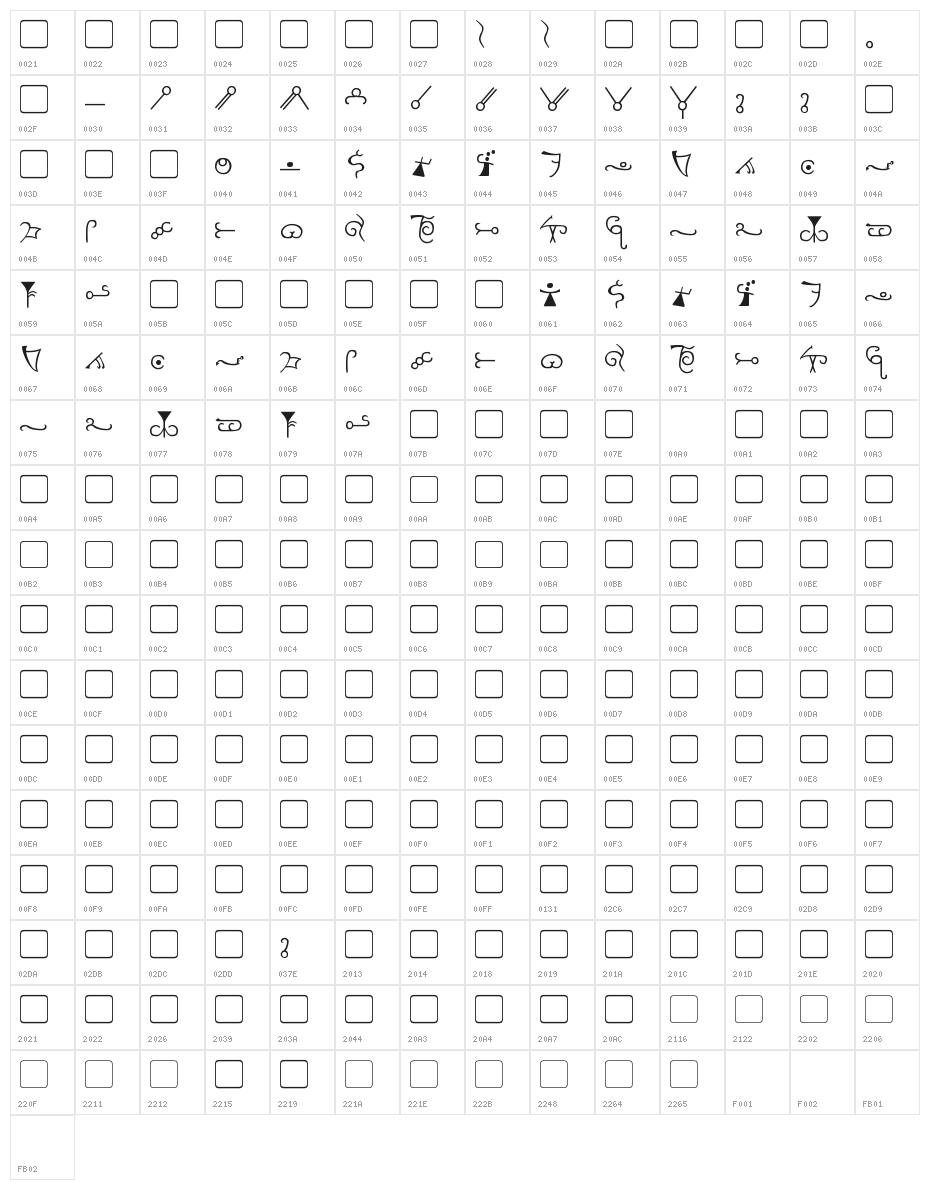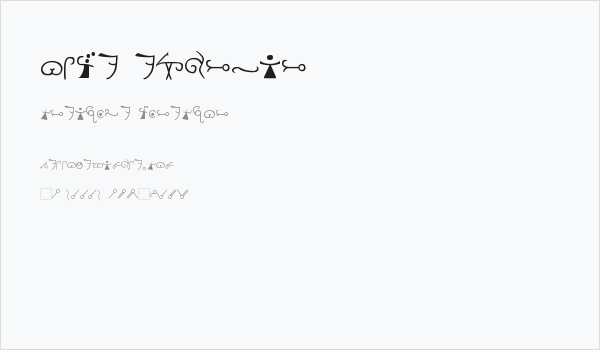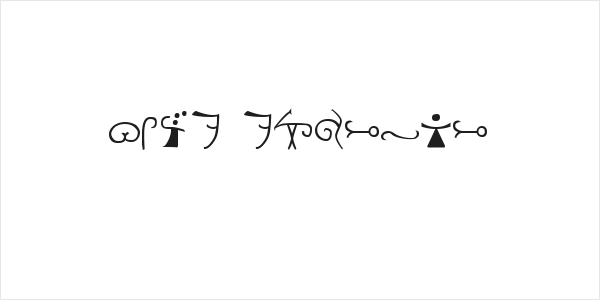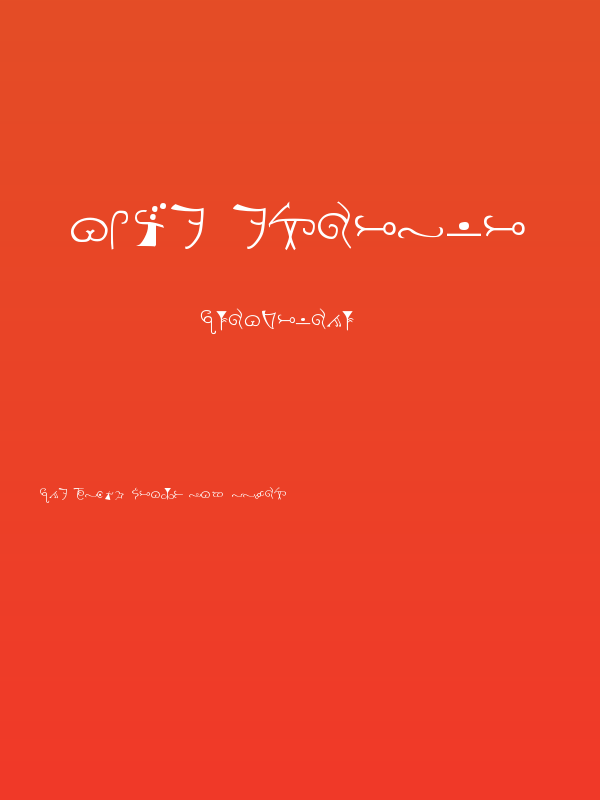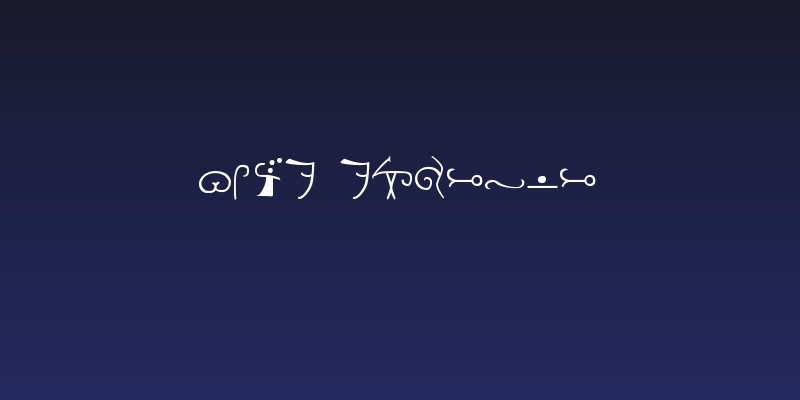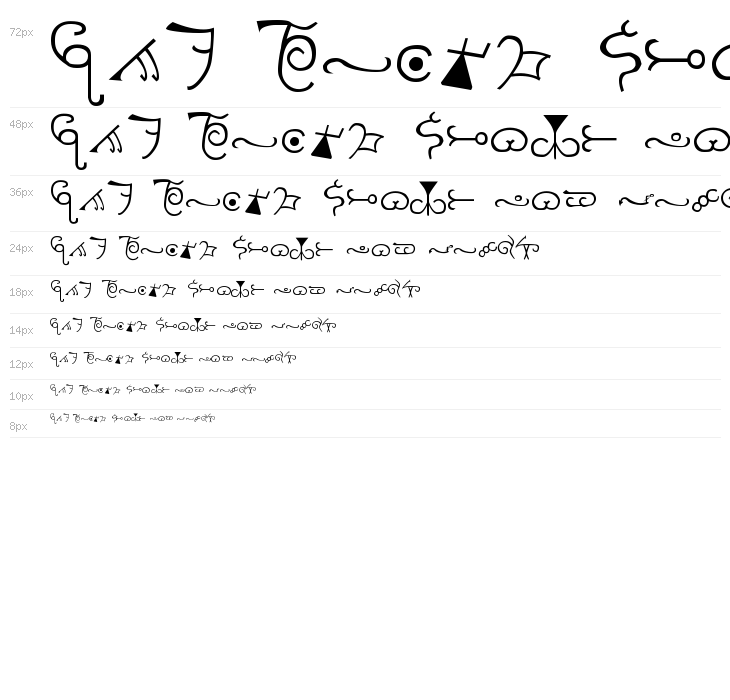
Olde Espruar Font
Olde Espruar Description
This font is a decorative script that evokes an ancient, mystical aesthetic. The characters are highly stylized, featuring intricate curves and unique geometric shapes that resemble runes or glyphs. Each letter is distinct, with elaborate flourishes and a sense of flowing movement. The overall design suggests a connection to fantasy or historical themes, making it ideal for projects that require a touch of the arcane or otherworldly. The characters are evenly spaced, maintaining a consistent visual rhythm across the text.
| Overall Style | Mystical, Ancient, Decorative |
| Use Case | Logos, Book covers, Game design |
| Proposed Projects | Ideal for fantasy-themed projects, game design, book covers, or any creative work that requires an ancient or mystical feel. |